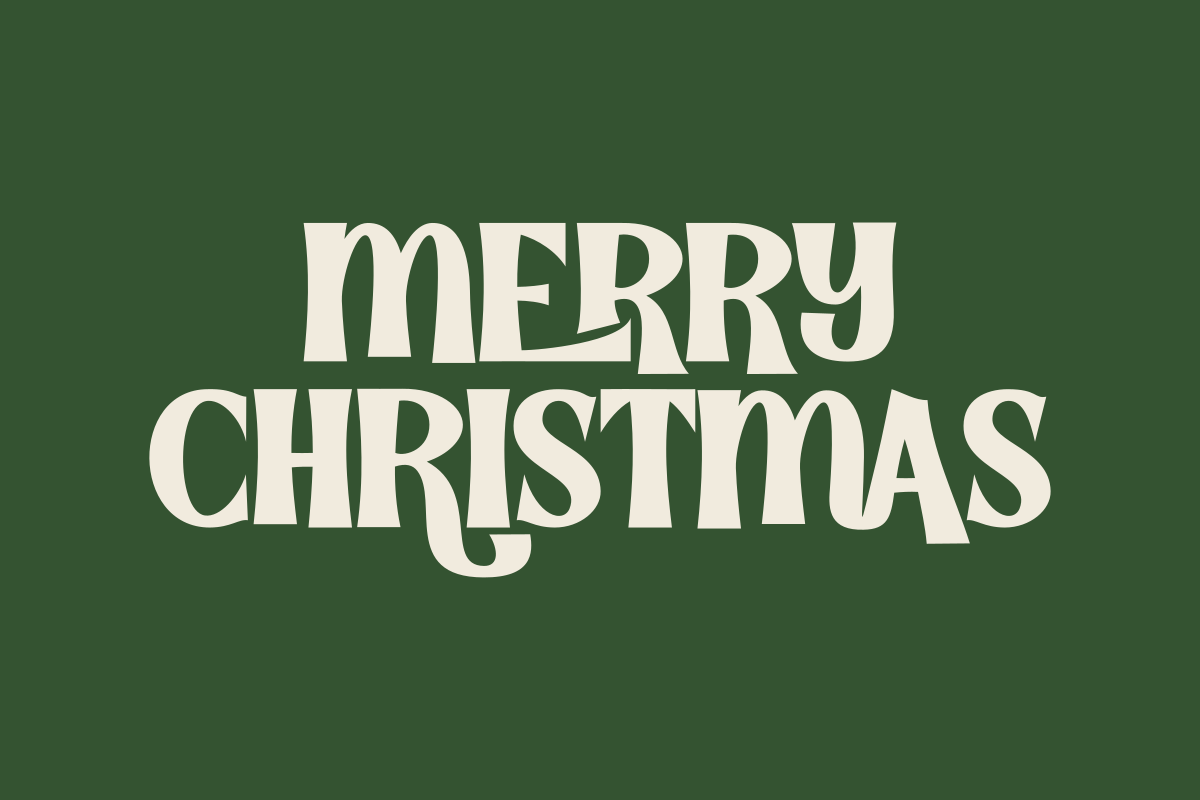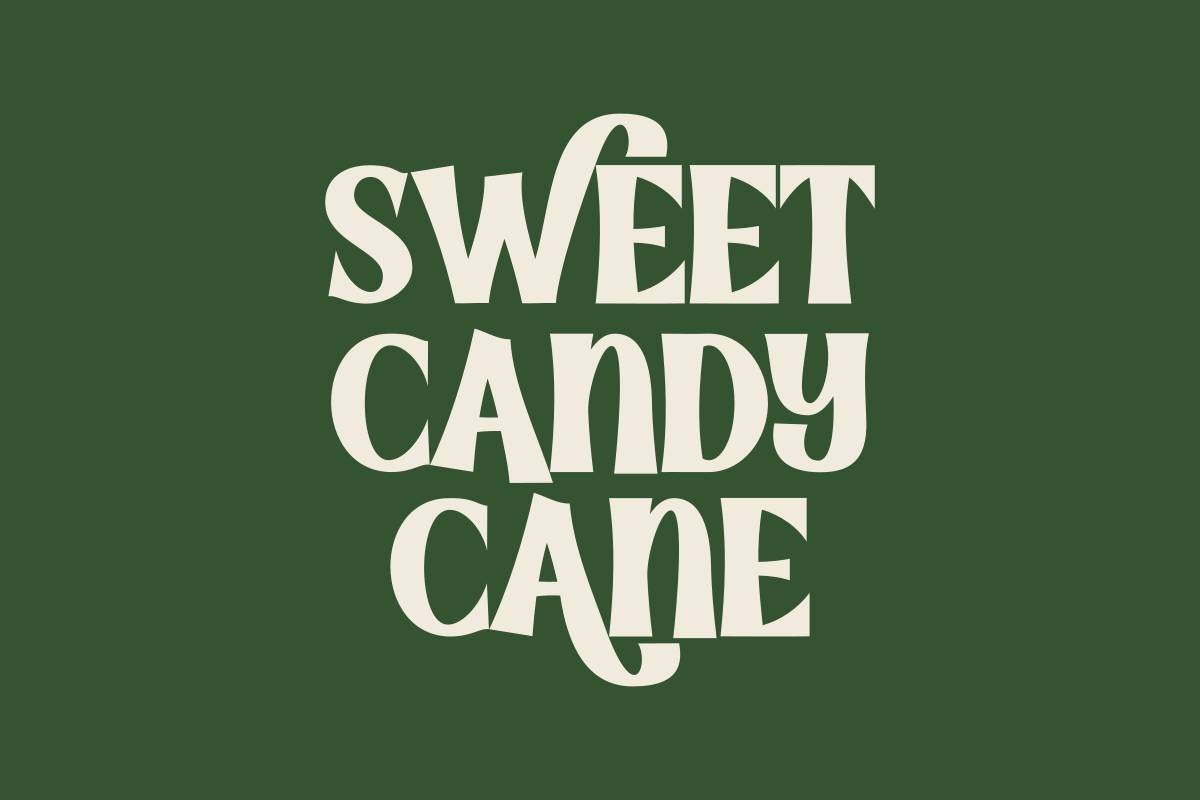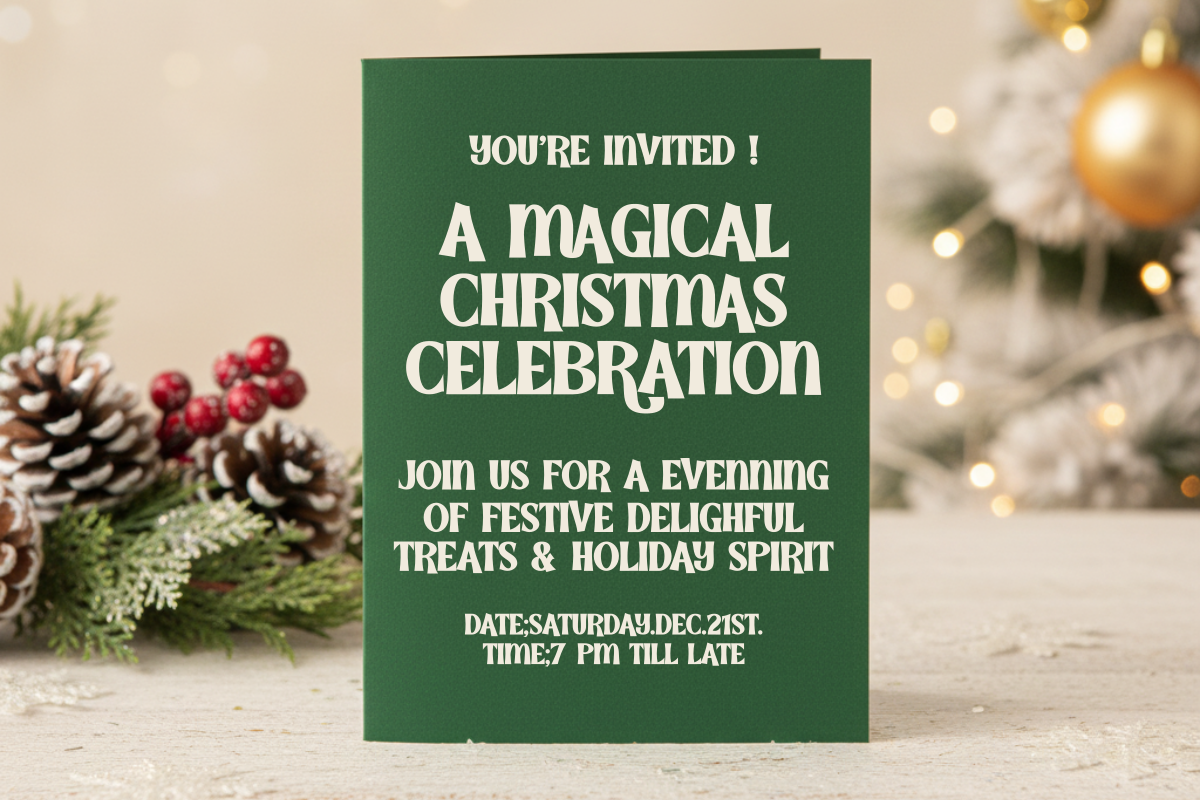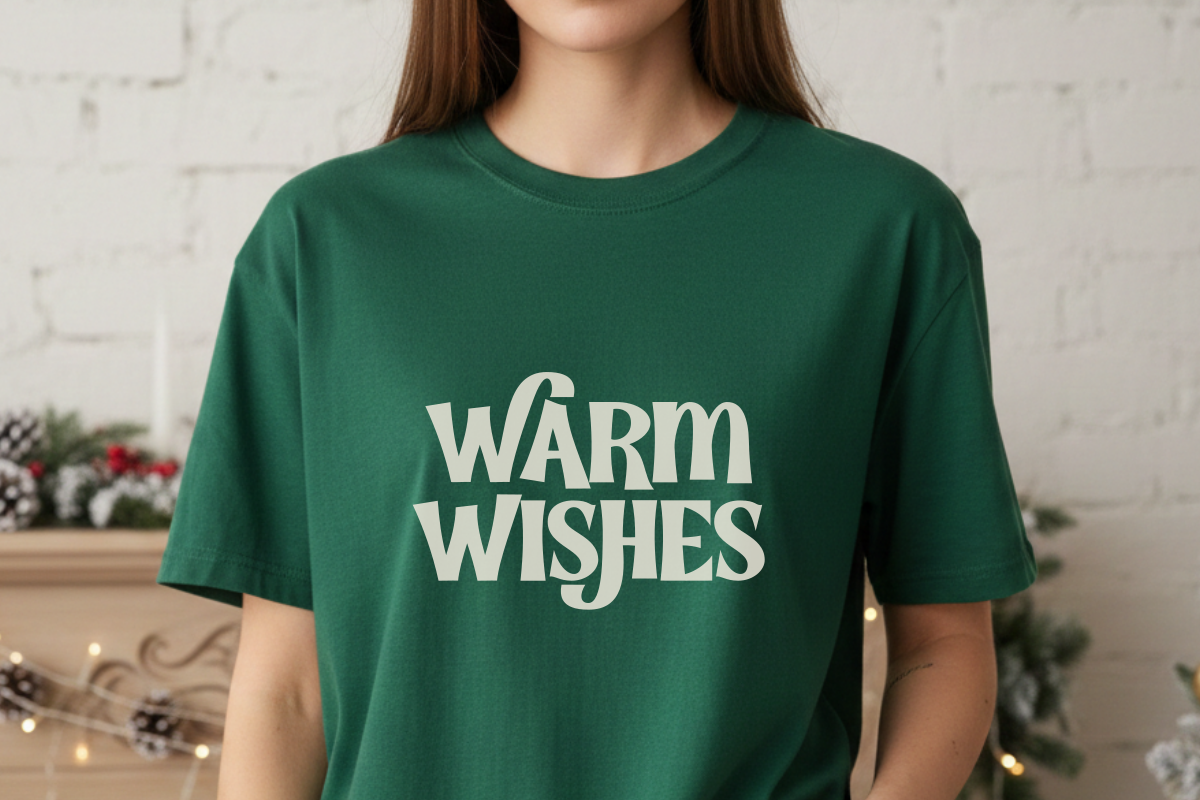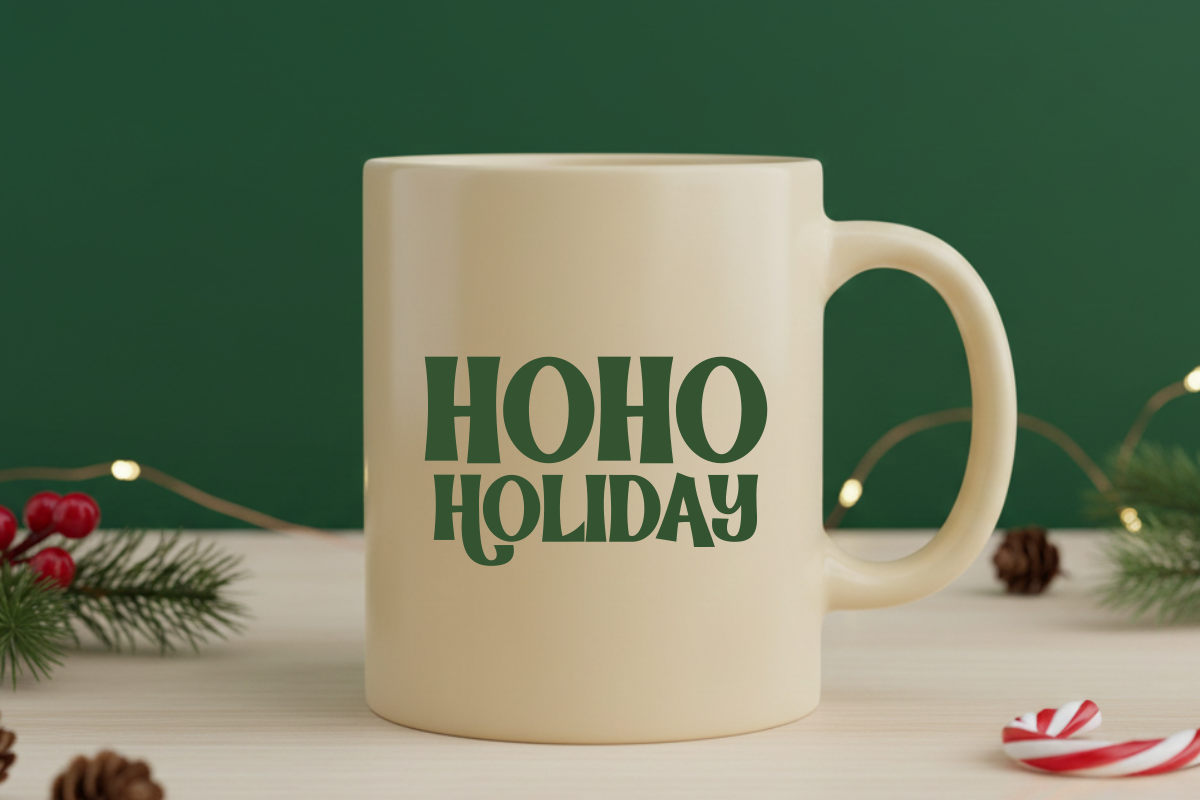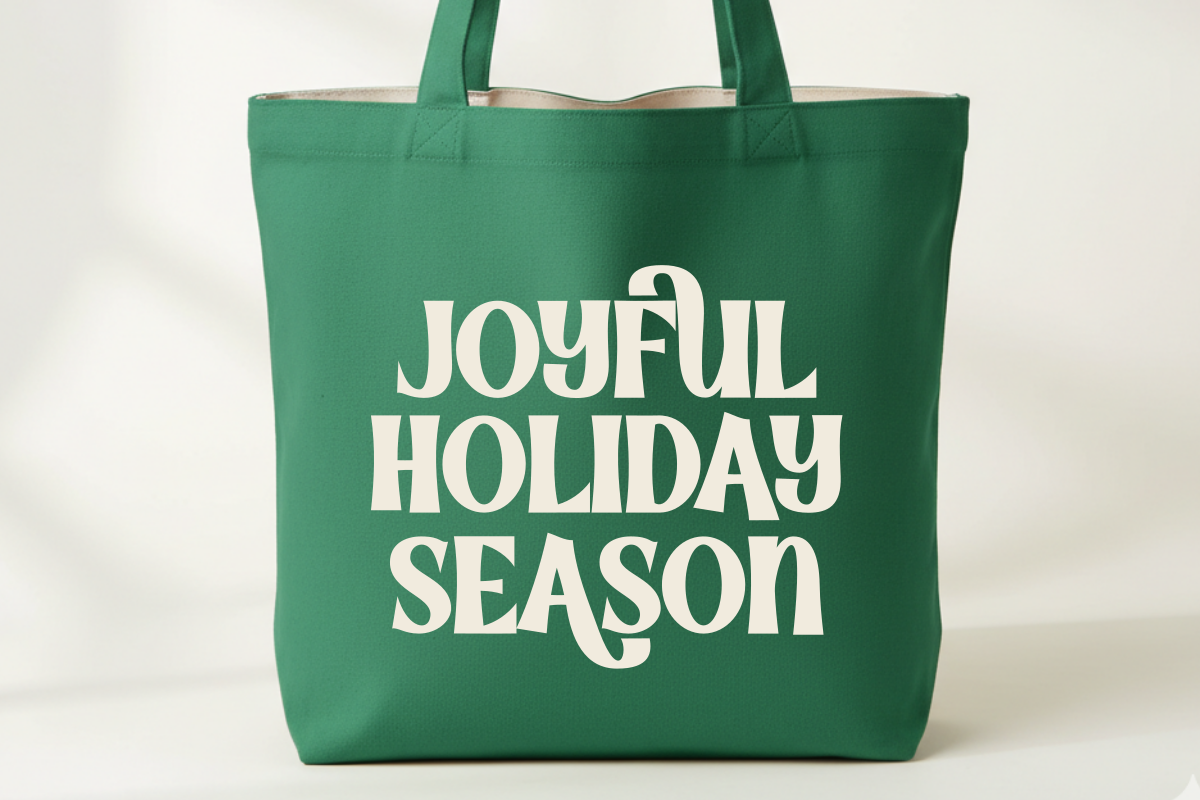
Merry Bright - Handwritten Display
Merry Bright is a vibrant and handwritten display font designed to infuse your designs with joy and festive energy. Featuring bold, chunky strokes and organic, playful curves, this typeface is the perfect choice for Christmas branding, holiday greeting cards, winter posters, and spirited social media graphics. Its unique handcrafted aesthetic and bouncy rhythm ensure your headlines stand out with a touch of seasonal warmth. Whether you are creating apparel designs, gift tags, or playful children's projects, Merry Bright brings a cheerful and creative spirit to every piece of work.